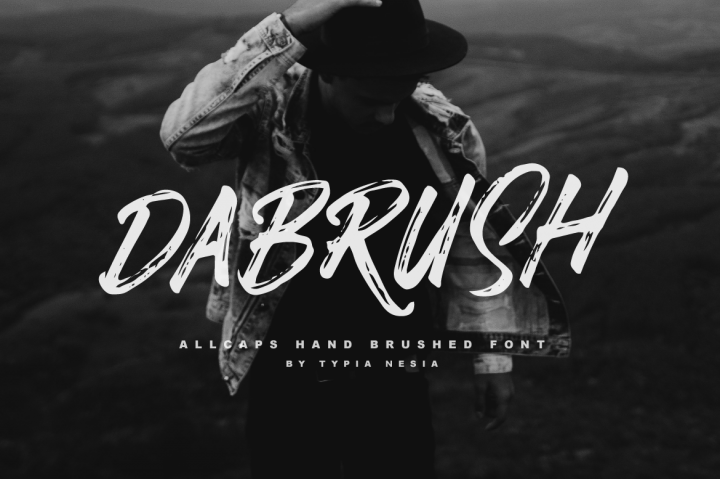
Dabrush Brush Font
Wonderfulness, it’s hand lettered and modern brush font, coming from Typia Nesia. Introducing Dabrush Brush Font. DaBrush is a dry brushed font with the edgy characters and the rustic brush effect. It suitable for logo, branding, t-shirt, poster, packaging, book cover, hipster design, cards, and any brush lettering needs and more.